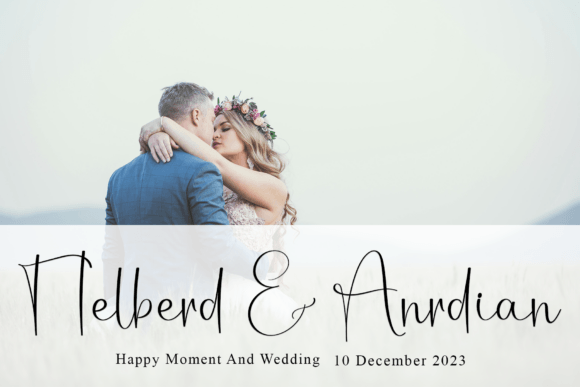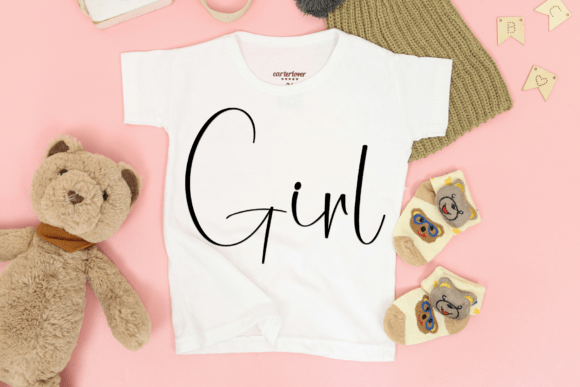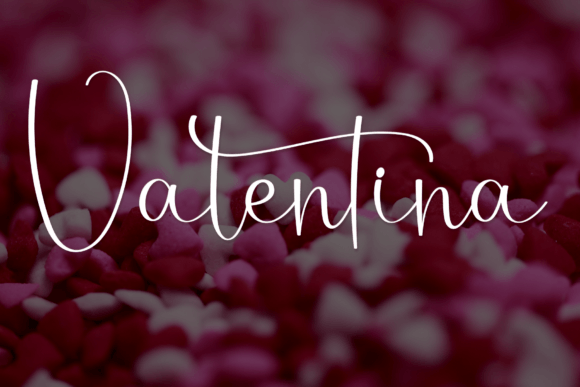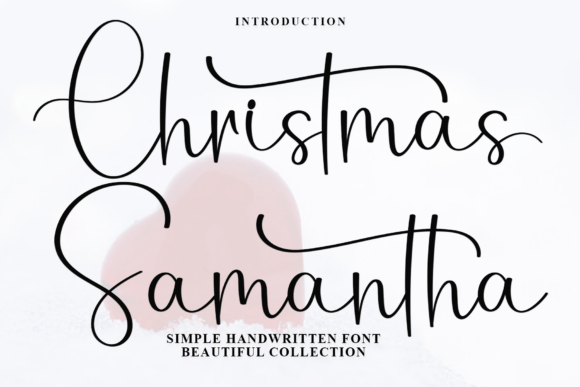
Introduction to Christmas Samantha Font
Christmas Samantha is a stylish and incredibly elegant script font.
It looks stunning on wedding invitations, thank you cards, quotes, greeting cards, logos, business cards and every other design which needs a handwritten touch This font is PUA encoded which means you can access all of the amazing glyphs and ligatures with ease.